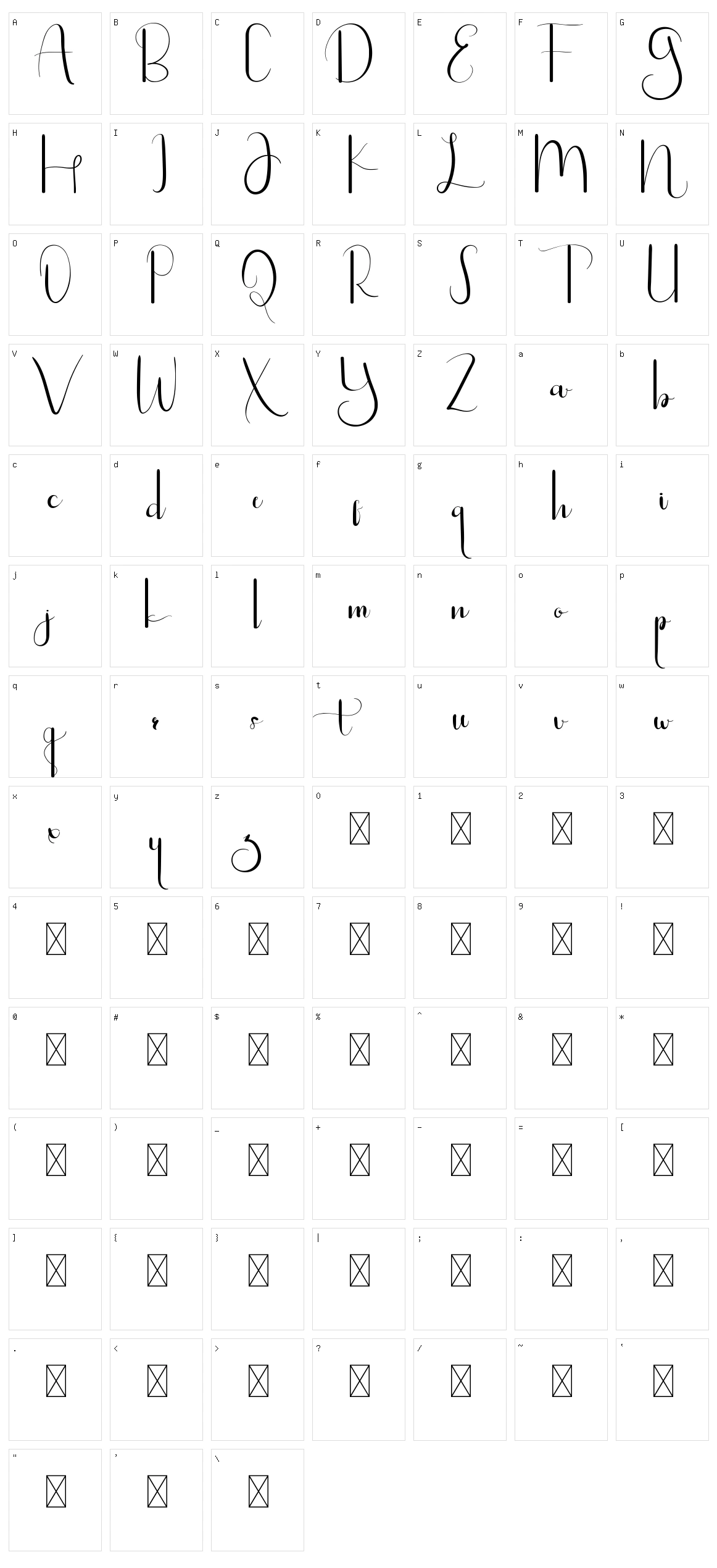
The free font Lighten Up is carefully designed by Edric Studio, showcasing a thoughtful balance of creativity and usability and falls under the Script font style. When you download the ZIP file, it contains only 19.44 KB of font files, making it lightweight and quick to download. Please review the license details below to understand permitted usage and distribution rights. If license information is not available, we recommend using this font for personal projects only or contacting the author directly for commercial usage permissions.